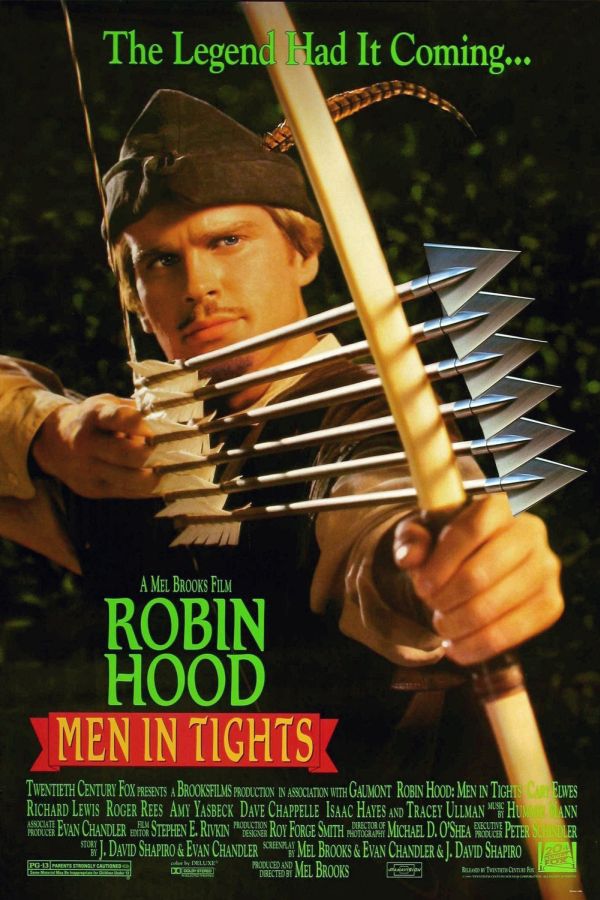
Men in Tights Font
In the poster, Robin Hood: Men in Tights' title is likely to be Romic Medium, a decorative serif designed by Colin Brignall. You can view more details about it here.